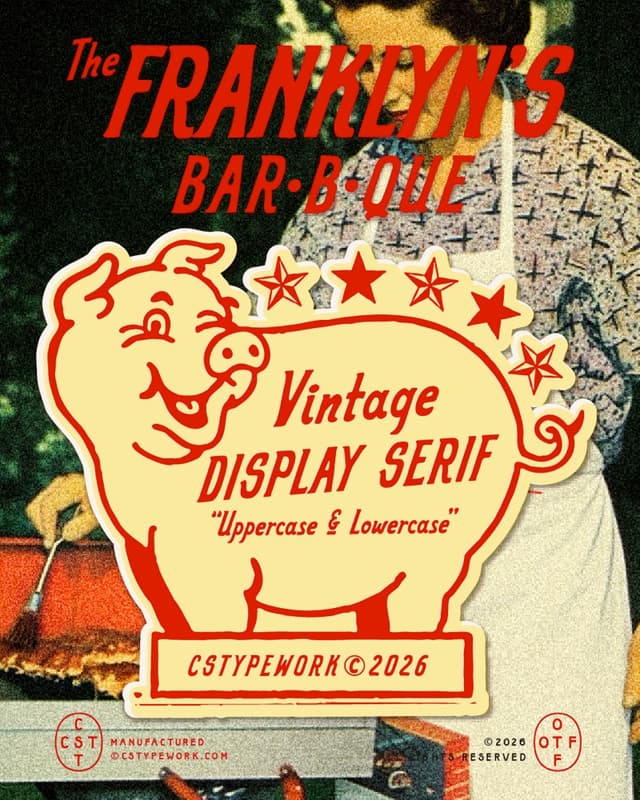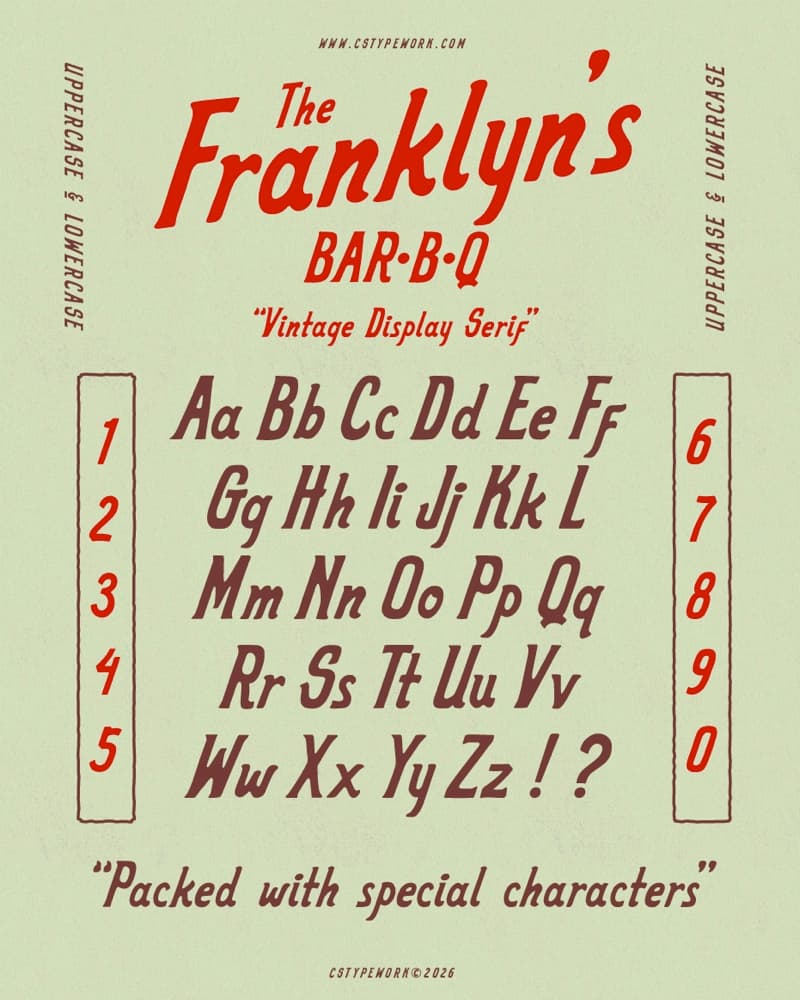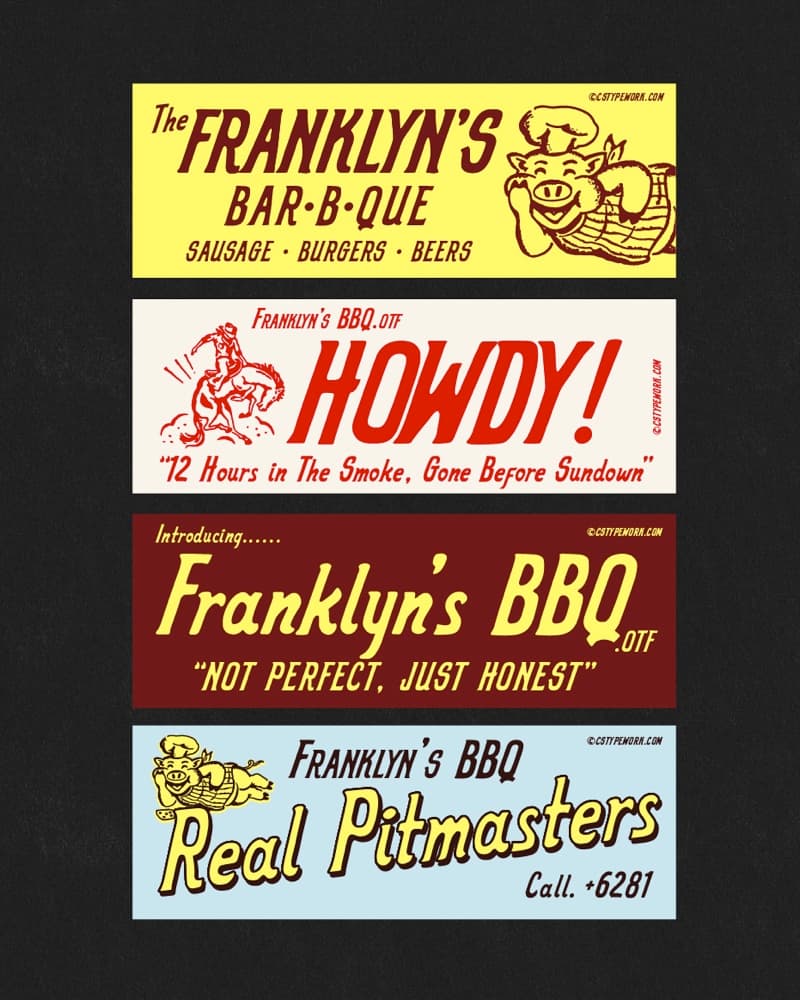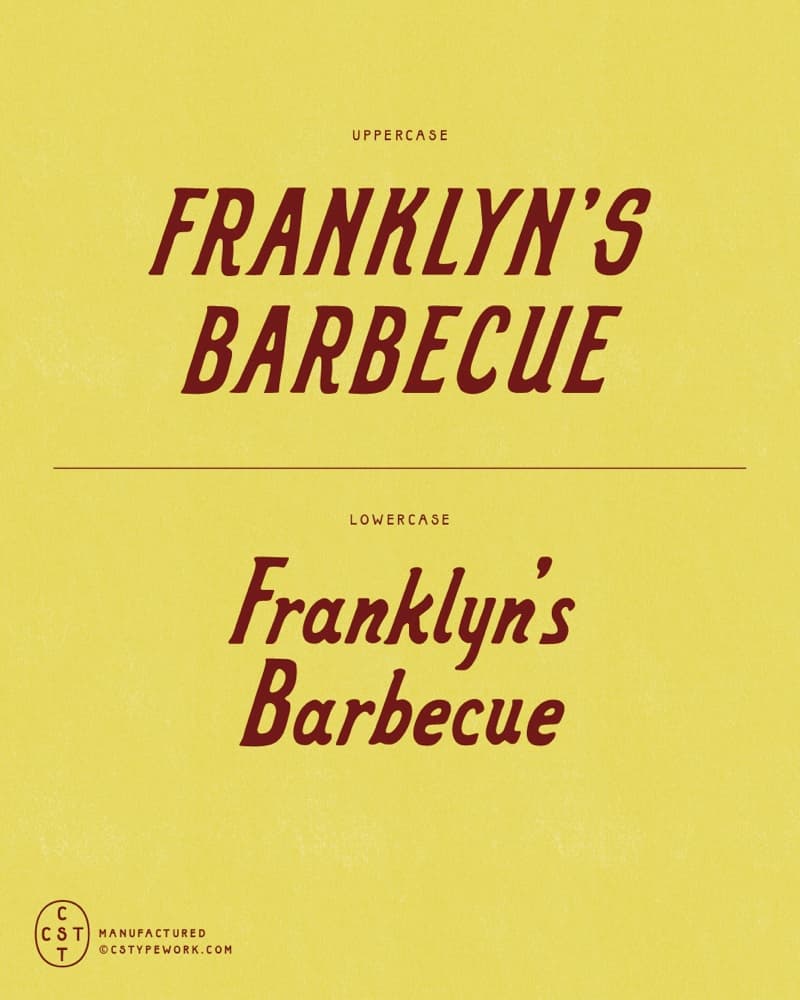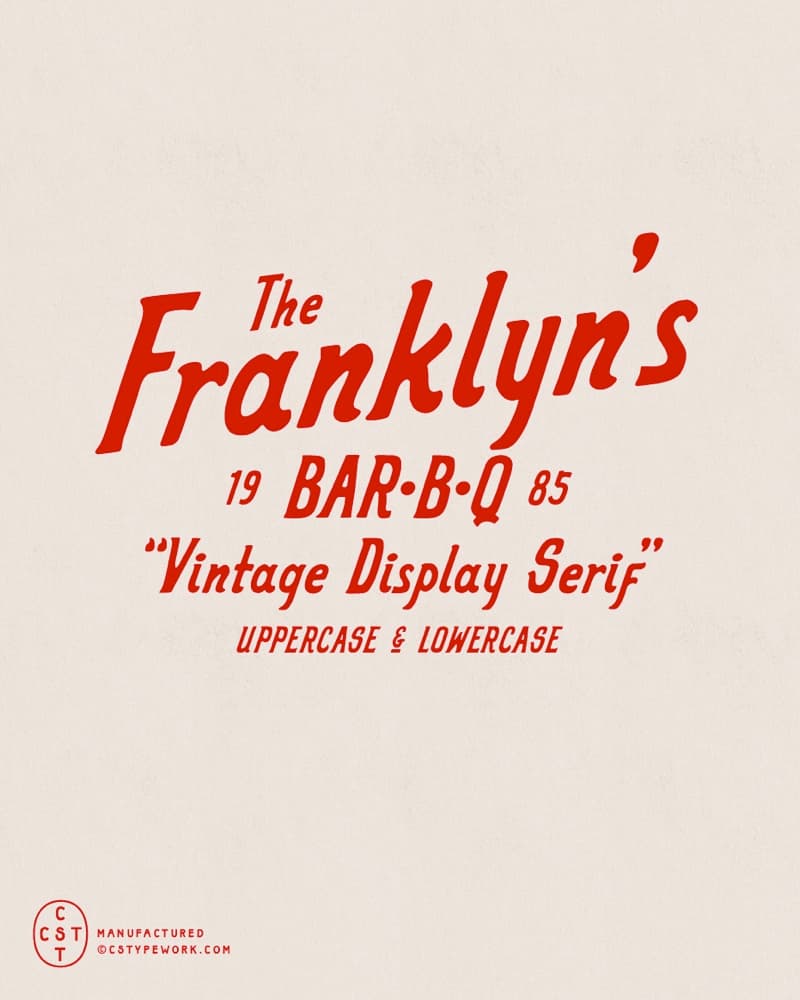
Franklyn's BBQ CST
FRANKLYN'S BBQ CST
A slanted display type inspired by hand drawn vintage American BBQ signage.
Bold, lively, and full of motion, echoing smoke filled kitchens, roadside joints, and painted signs made to stop you in your tracks.
Built with character.
Drawn with fire.
"Written in smoke"